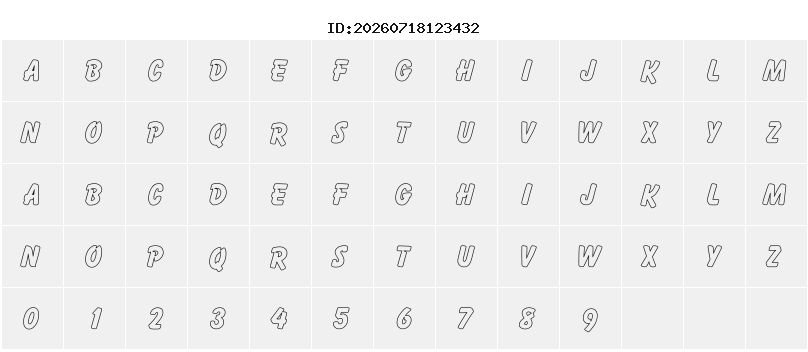
• Font Name: Cartoon Hollow Condensed
• Full Font Name: Cartoon Hollow Condensed
About Cartoon Hollow Condensed.ttf
Cartoon Hollow Condensed.ttf is a modern, elegant sans-serif font designed for ultimate readability and visual harmony. Perfect for branding, headlines, web design, and print materials.